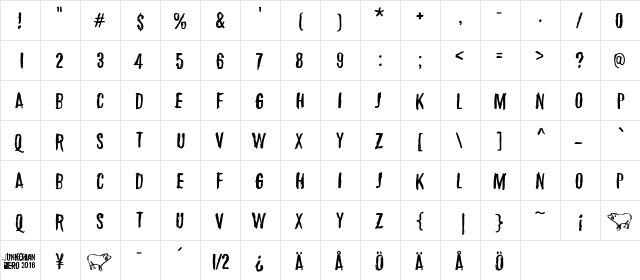
March of the pigs Regular
Design Context for March of the pigs Typeface
March of the pigs is a composed and adaptable typeface that performs quietly and consistently across a wide range of design contexts.